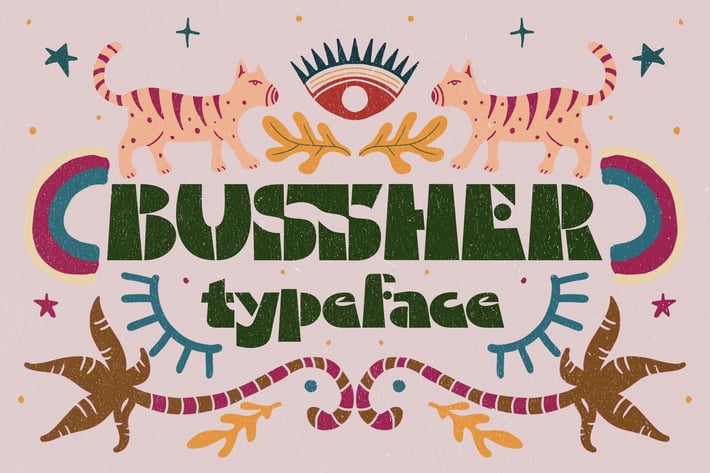
Bussher Typeface
Introducing Bussher Typeface This font is inspired by the design styles of the 70s. The style is funny, groovy, classic, not serious but has aesthetic and unique value, besides that the Bussher Typeface is very easy to remember and becomes the image of a design.
Bussher Typeface is very good for being your font collection because this font is very unique and easy to apply to any media that has a design concept that is not so serious, groovy, classic, funny and unique.
Besides that, it can be used for the design of t-shirts, posters, sign boards, and social media needs.